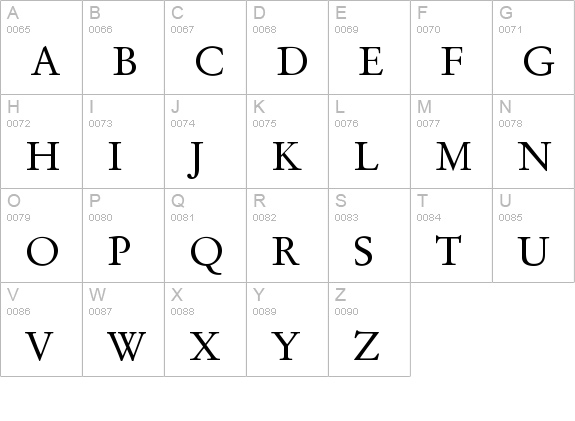
12 pt Stempel Garamond* Roman 05108 Font Details
Stempel Garamond Roman 05108 is a classic and elegant serif font that exudes sophistication and timelessness. With its graceful curves and fine details, this font is perfect for conveying a sense of tradition and refinement in any design project. The sturdy and balanced letterforms make it highly readable, making it a versatile choice for a wide range of applications. What sets Stempel Garamond Roman 05108 apart is its free availability for download at FontsMarket.com. This means that you can easily access and use this beautiful font in your projects without any cost, making it a valuable addition to your font library. Whether you're designing invitations, logos, or printed materials, Stempel Garamond Roman 05108 will bring a touch of sophistication and professionalism to your work. Overall, Stempel Garamond Roman 05108 is a timeless and versatile font that is sure to elevate your designs. Download it for free at FontsMarket.com and start incorporating this elegant typeface into your projects today.